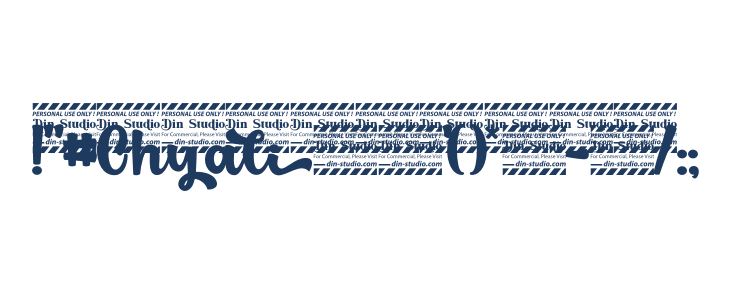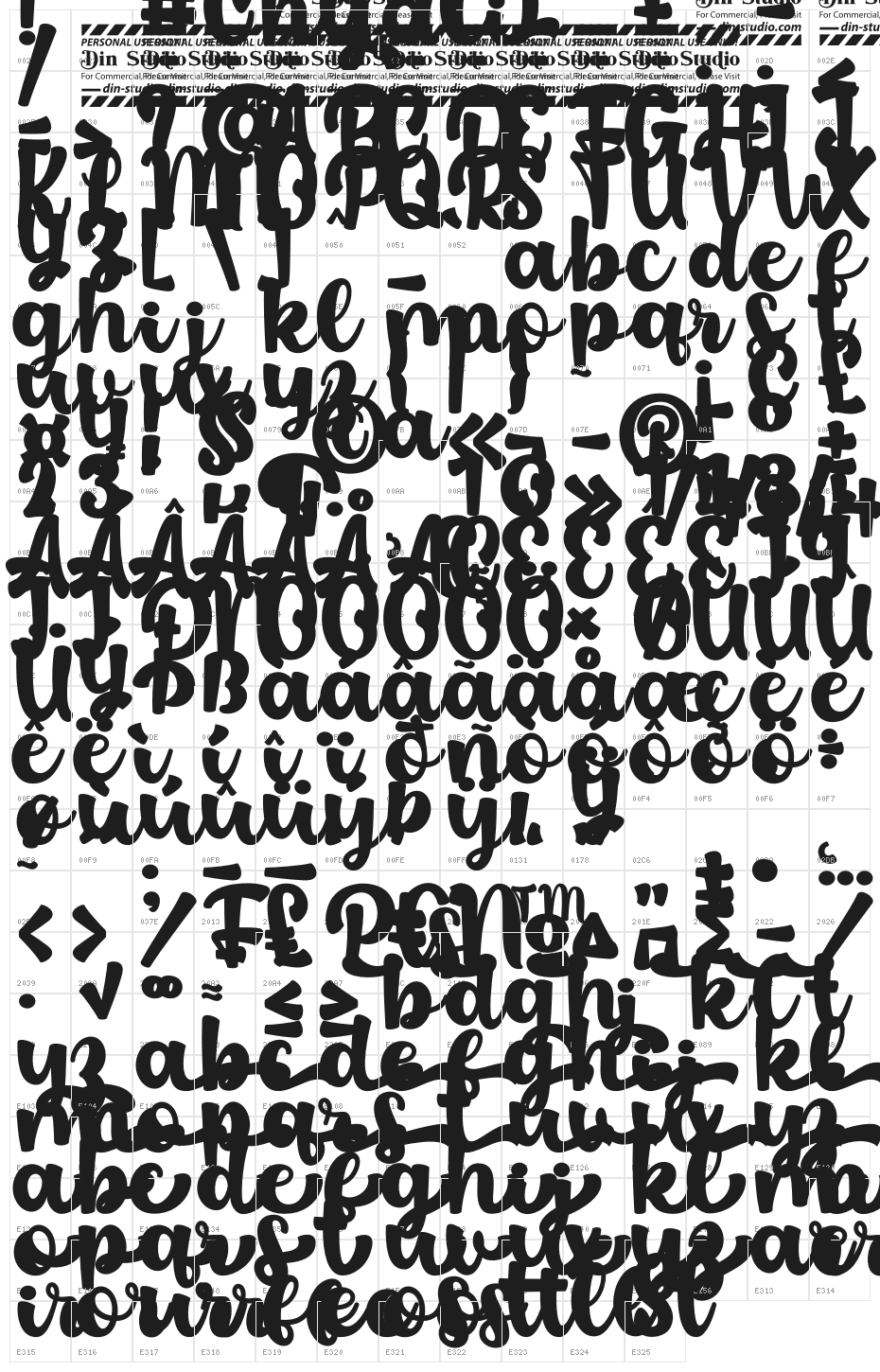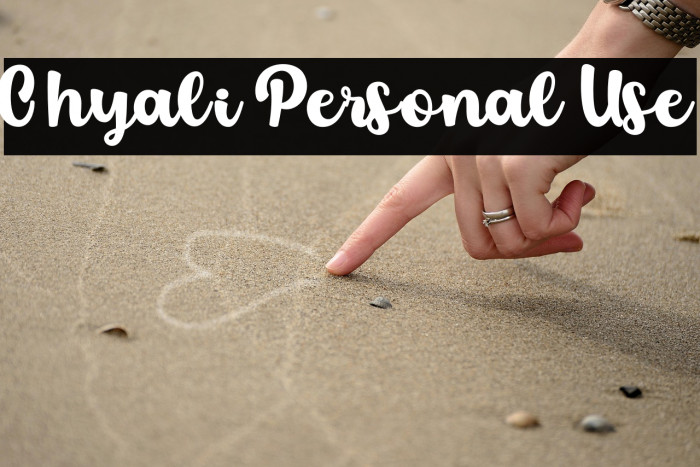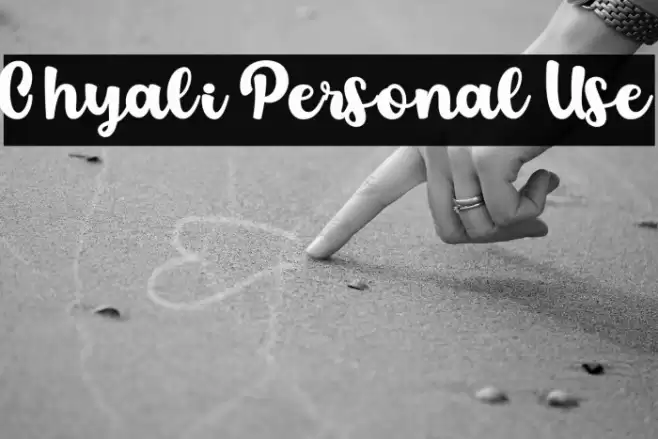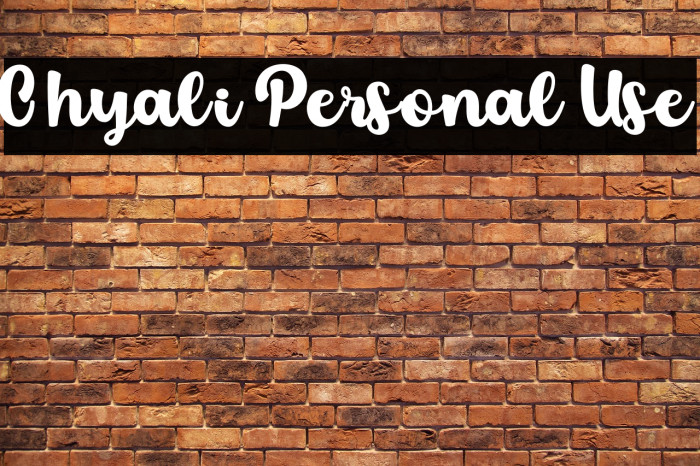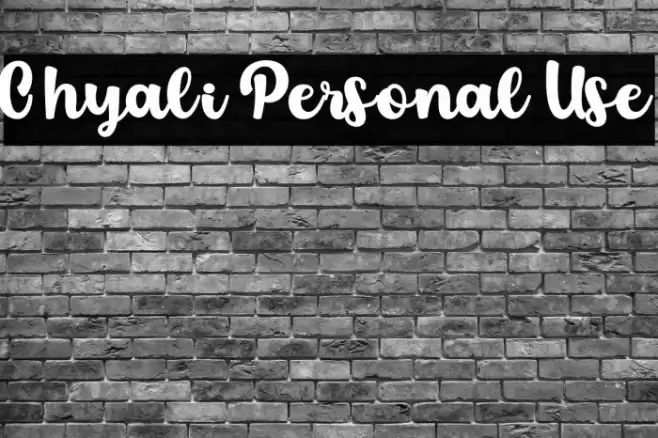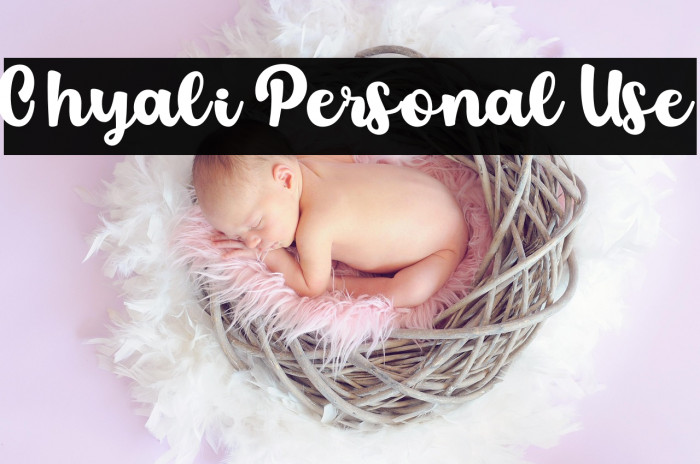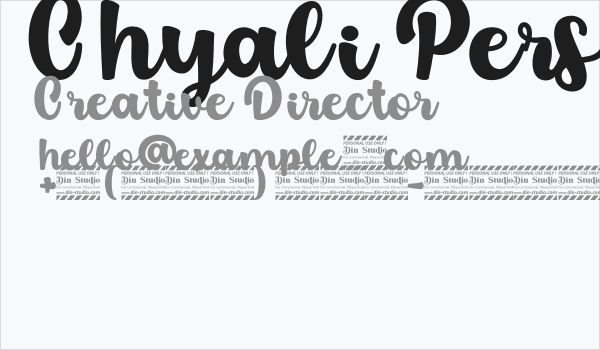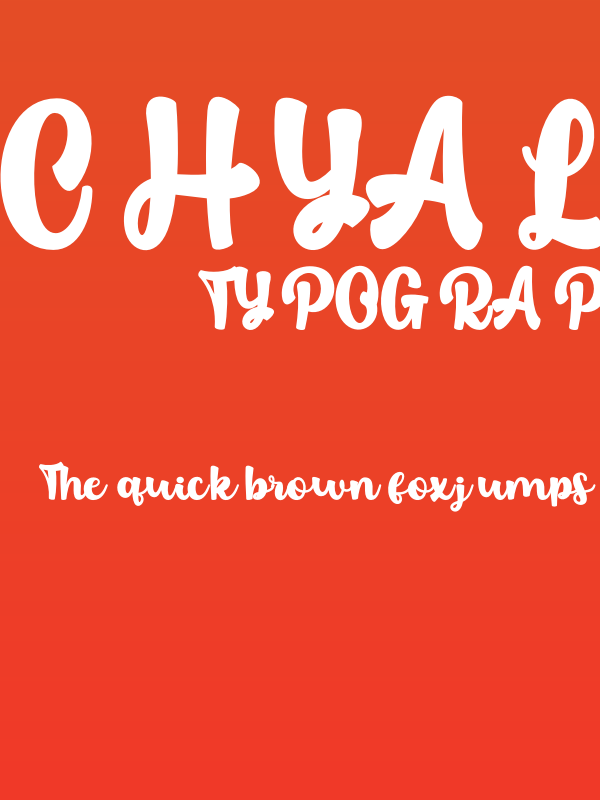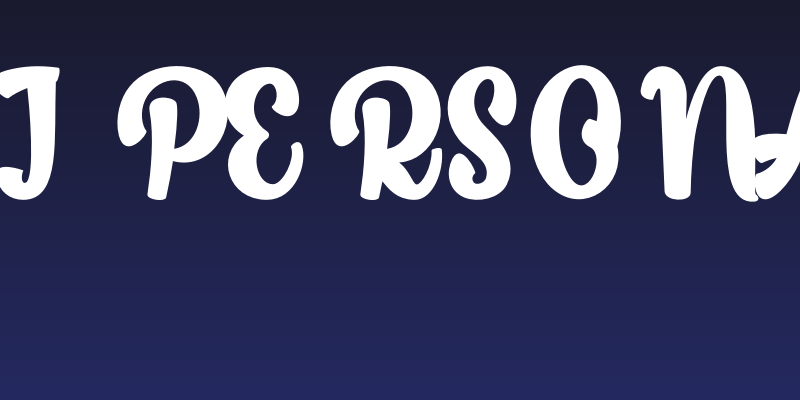
Chyali Personal Use Font
Chyali Personal Use Description
This font features a bold, flowing script style with a playful and artistic flair. The characters are interconnected, giving a sense of continuity and elegance. The uppercase letters are slightly more structured, while the lowercase letters exhibit a more casual, handwritten feel. The strokes are thick and consistent, providing a strong visual impact. The font includes a full set of uppercase and lowercase letters, numbers, and a selection of special characters, making it versatile for various design needs. Its decorative nature makes it suitable for creative projects that require a personal touch.